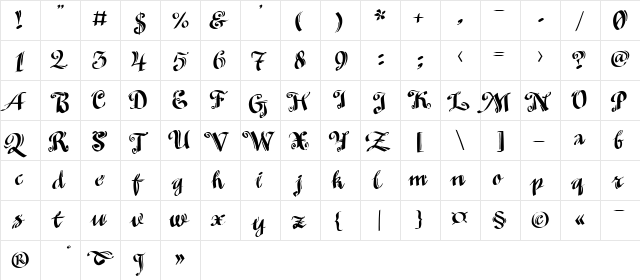
MinusmanC Regular
Design Context for MinusmanC Typeface
MinusmanC is a composed and adaptable typeface that performs quietly and consistently across a wide range of design contexts.